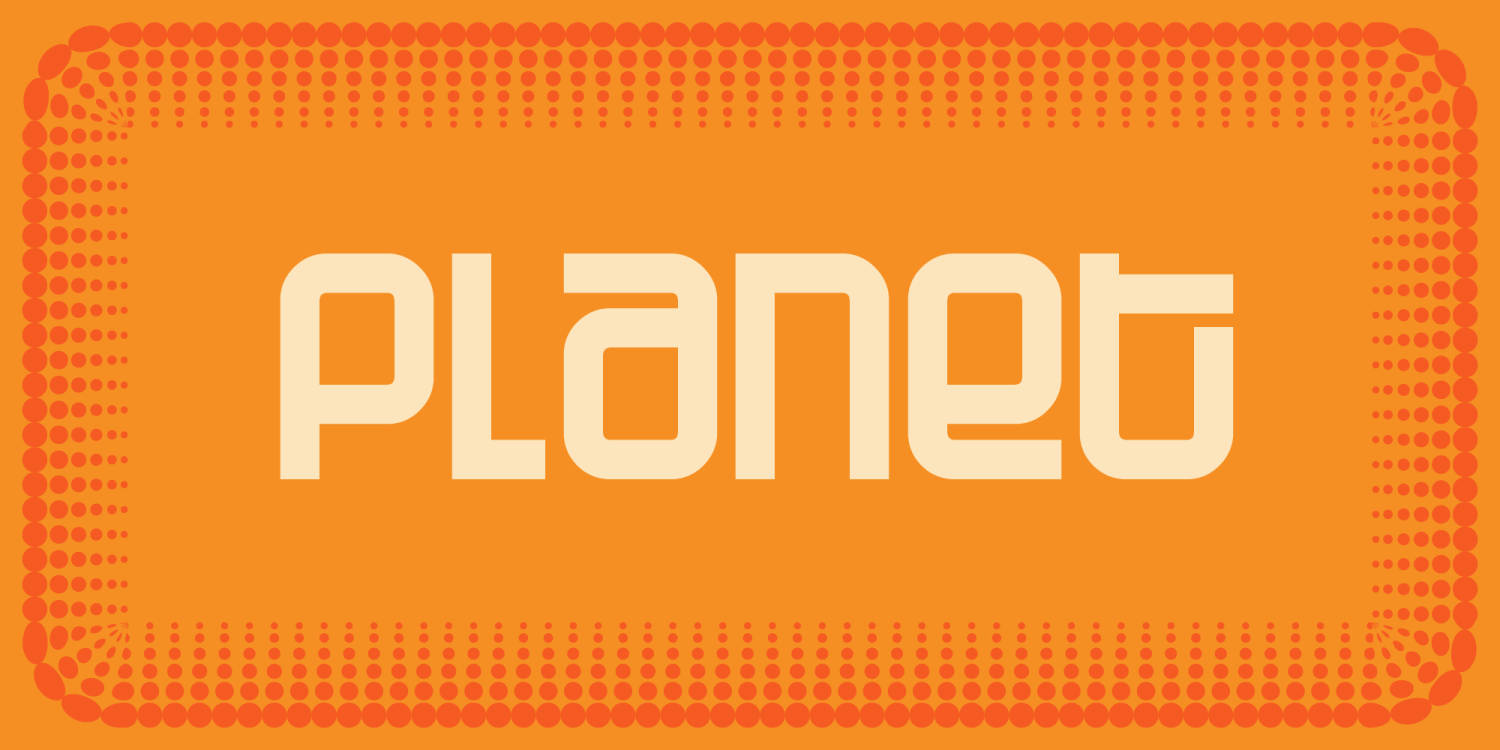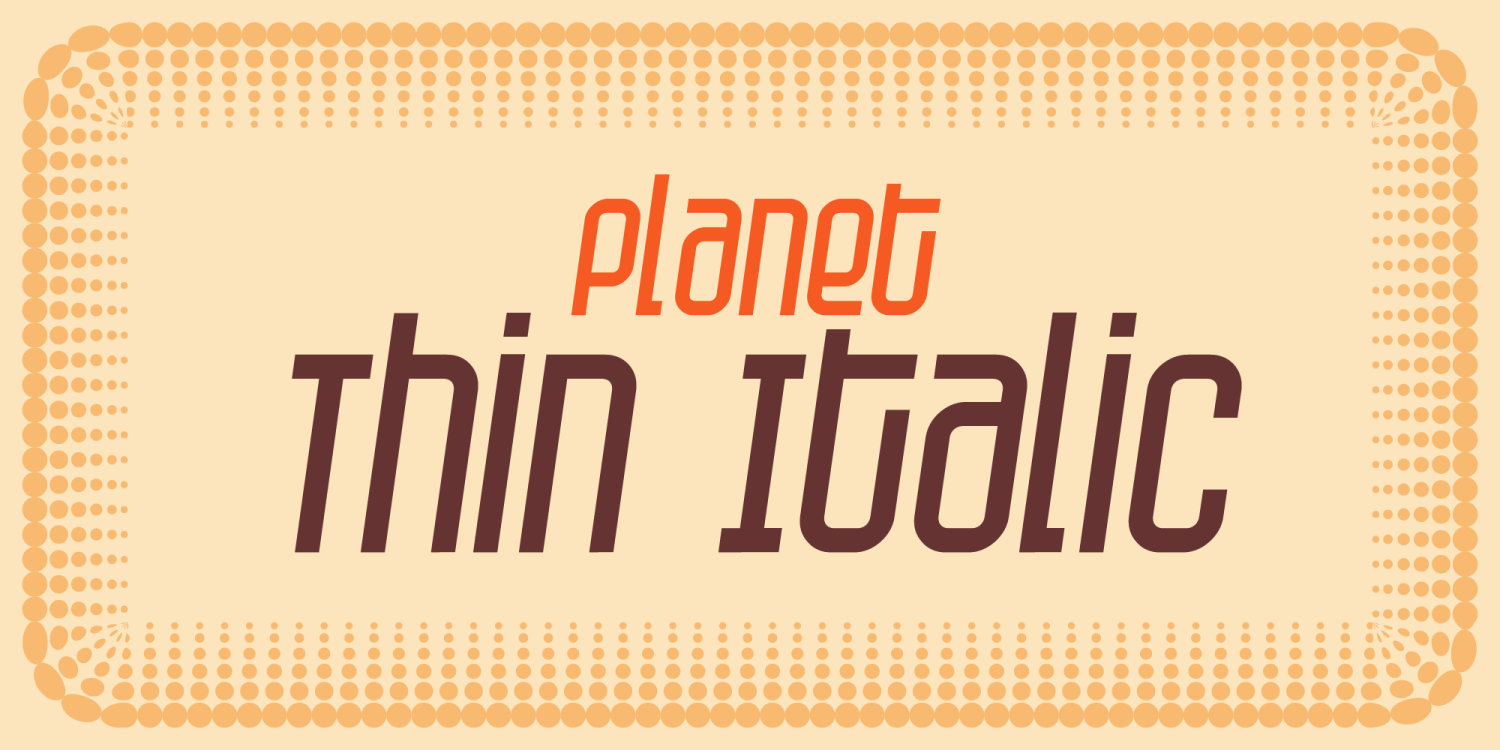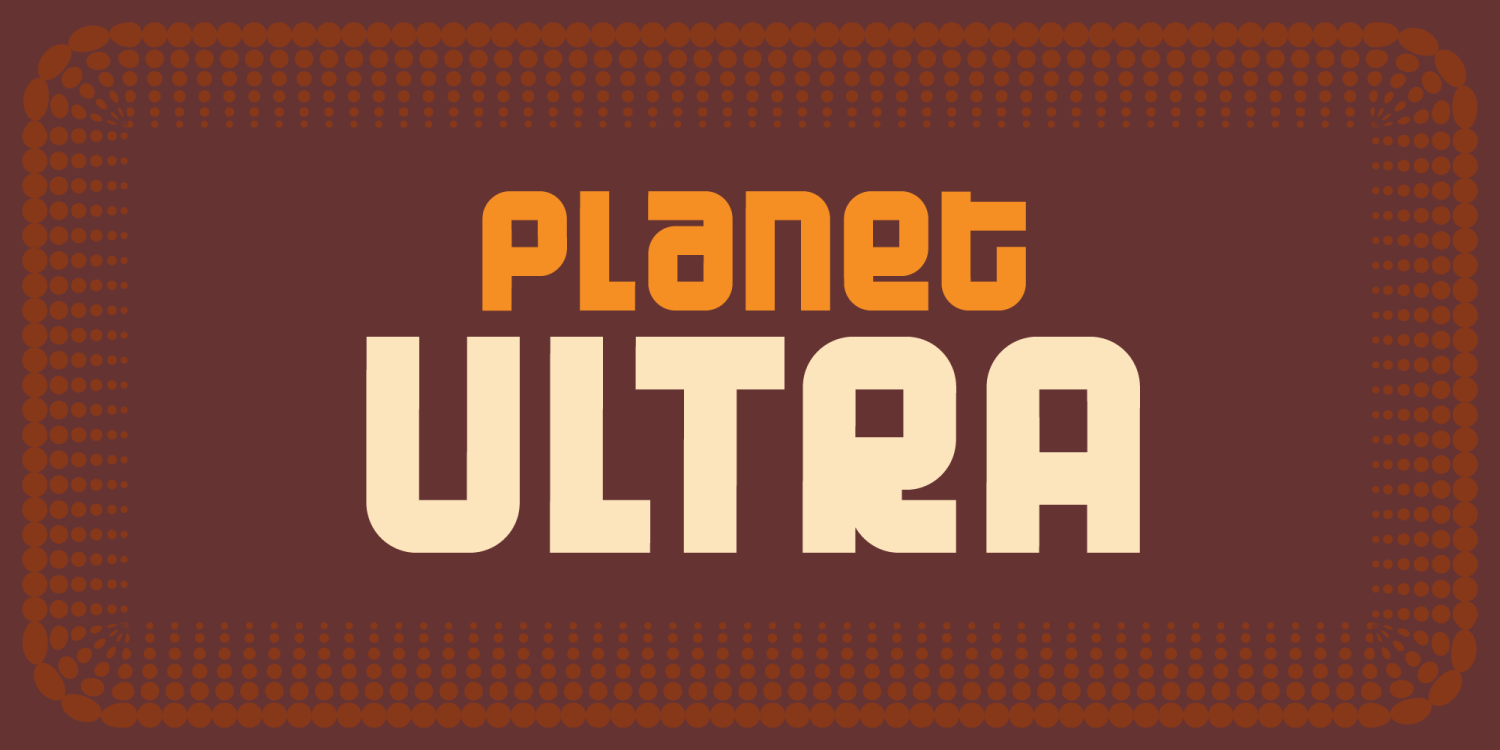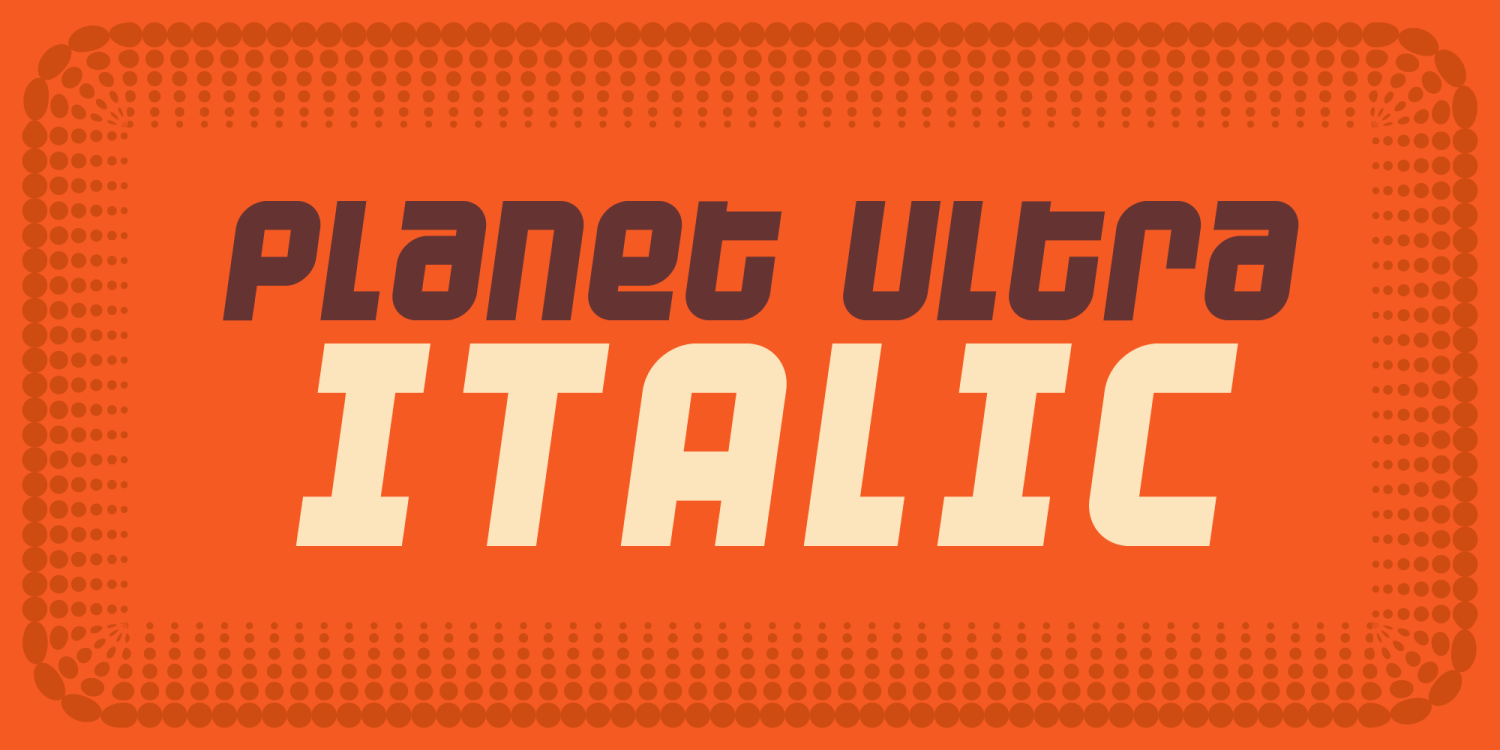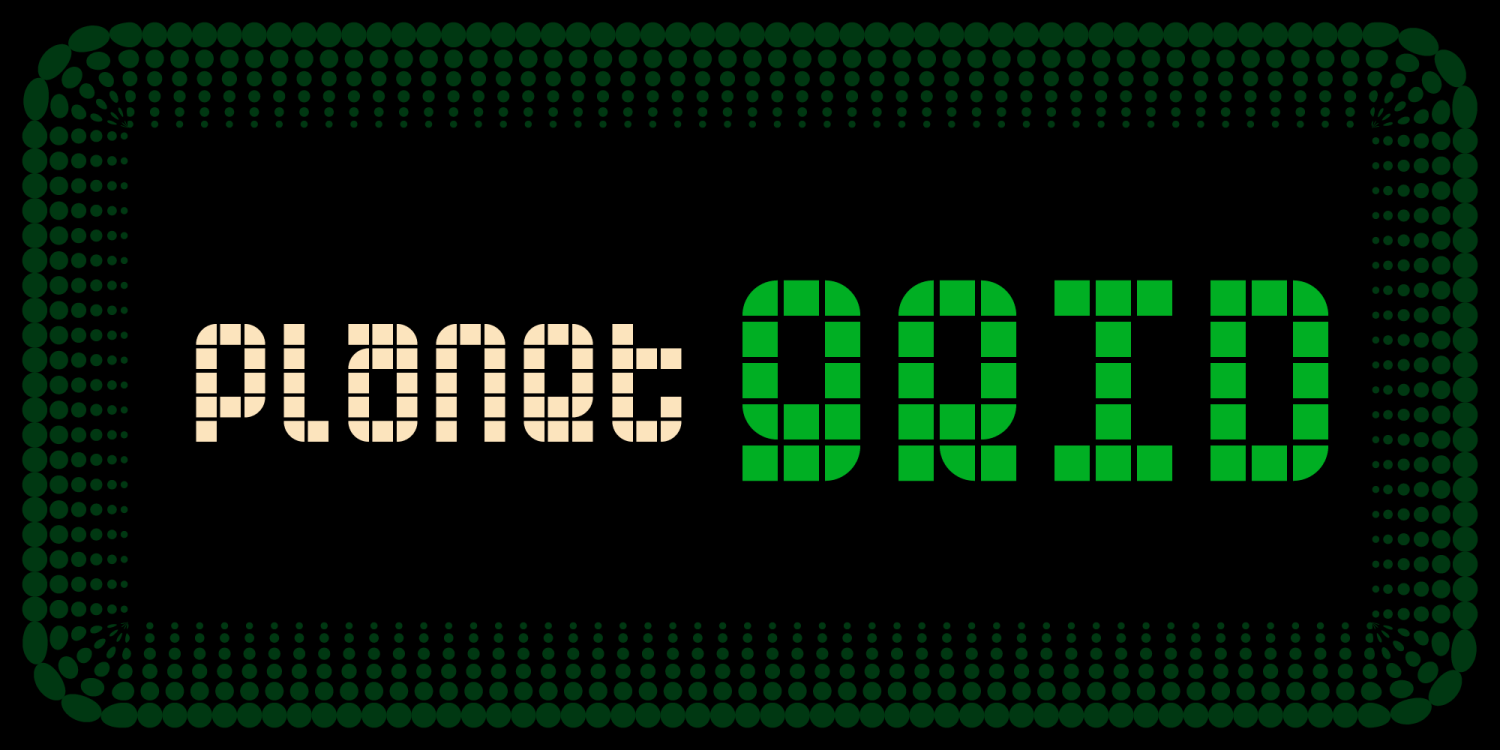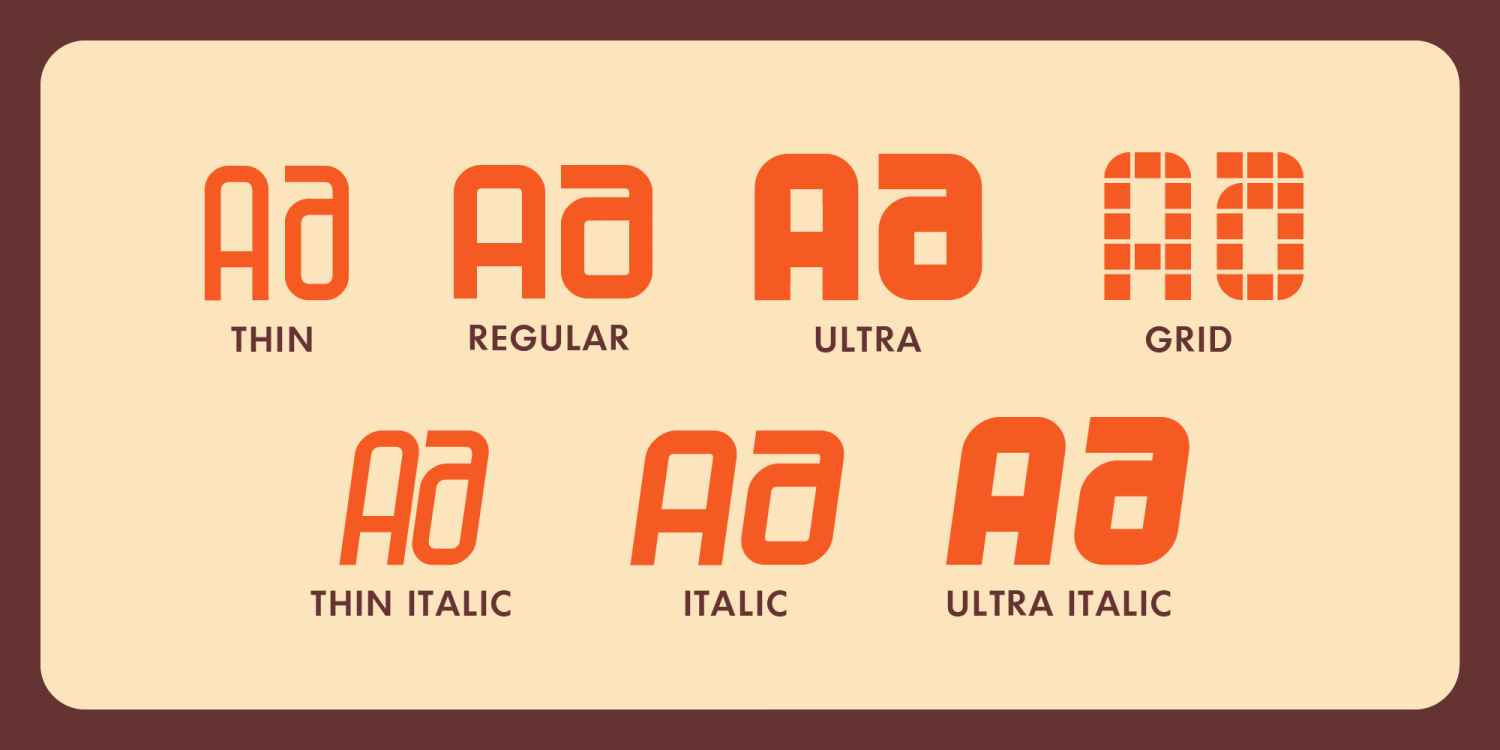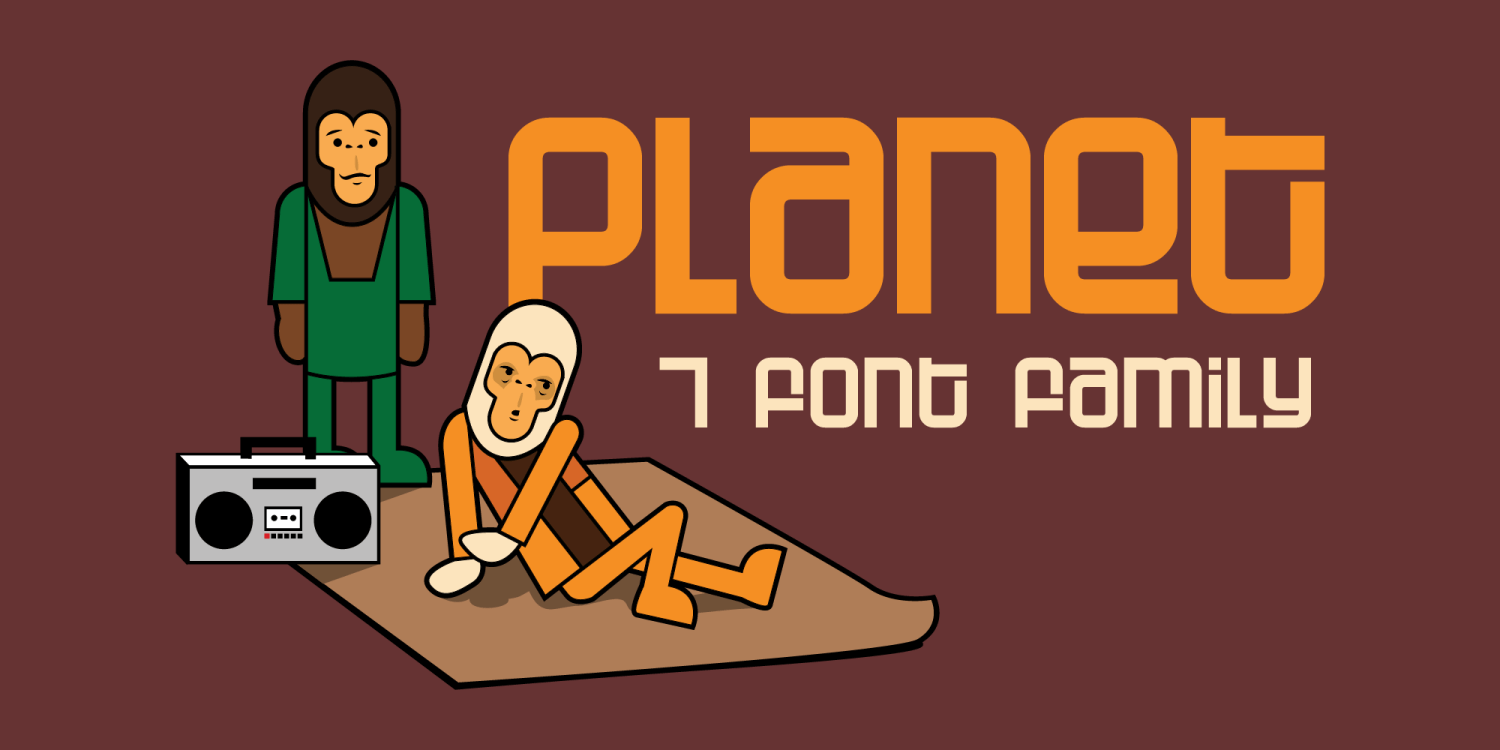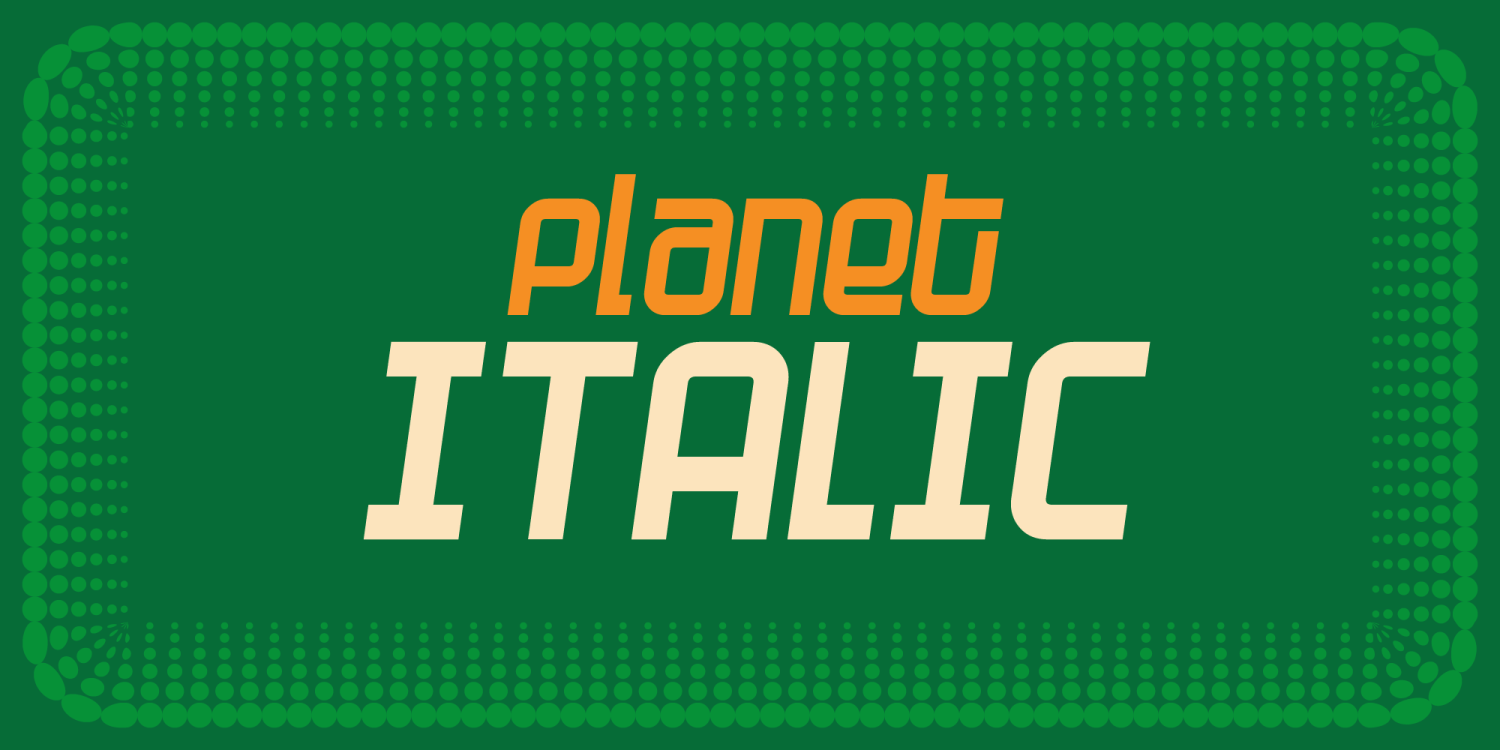
Planet
About Planet
After I finished designing Planet, it looked really familiar. I make a lot of fonts, so sooner or later I'm bound to make one that looks like another. I finally figured out it was a cross between dopenakedfoul and SuperVixen. Go figure. What does…